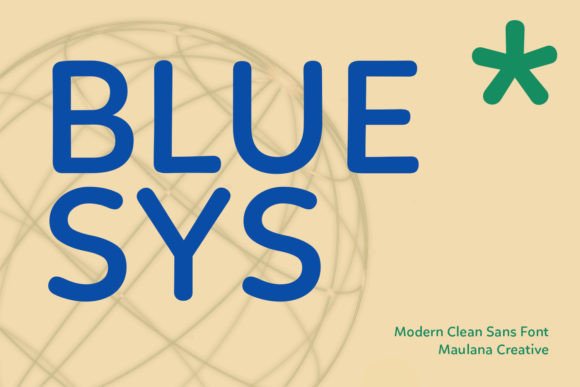
The Bluesys Sans Serif font family is specially crafted to elevate your designs with its crisp and contemporary appeal. This modern font, meticulously designed by the skilled Maulana Creative, exudes a light and airy touch that adds a touch of elegance to any project.
Immerse yourself in the musicality of Bluesys Font, its graceful curves and rhythmic strokes dance effortlessly across the page. With its playful ligatures and subtle alternates, this font captures the essence of creativity and expression.
Whether you're crafting logos that demand attention, captivating social media posts, or eye-catching movie and book titles, Bluesys Font is the perfect choice. Its versatility extends to both short and extended text, ensuring that your message flows smoothly and effortlessly.
Unlock the power of Bluesys Font as a complement to your script or serif fonts, creating stunning visual compositions that will captivate your audience. Embrace the magic of Bluesys Font and elevate your designs to new heights of sophistication and style.